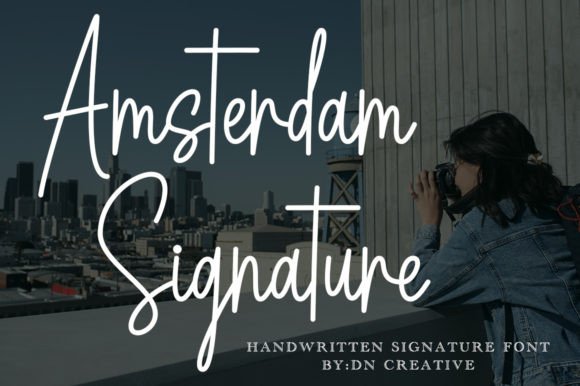
Introducing Amsterdam Signature Font: Elevate Your Designs with Modern Elegance
In the world of typography, a font can make or break a design. The right font can elevate your creation from ordinary to extraordinary, conveying the perfect tone and style. If you’re looking for a modern and sophisticated script font to add to your library, look no further than Amsterdam Signature Font. In this article, we’ll explore the features and benefits of this remarkable font and why it’s a must-have for designers and creatives.
What is Amsterdam Signature Font?
Amsterdam Signature Font is a modern and monoline script font that boasts a sleek and elegant design. Crafted with precision and attention to detail, this font is perfect for a wide range of applications, from branding and advertising to packaging and digital media. Its unique blend of modernity and sophistication makes it an excellent choice for designers seeking to create stunning visual content.
Key Features of Amsterdam Signature Font
• Modern and Monoline Design: Amsterdam Signature Font features a sleek and modern monoline design that exudes elegance and sophistication.
• Accurately Crafted and Detailed: Each letter and swash has been meticulously crafted to ensure a high level of detail and precision.
• Versatile: Amsterdam Signature Font can be used for a wide range of applications, from logos and branding to packaging and digital media.
The Benefits of Using Amsterdam Signature Font
So, why should you choose Amsterdam Signature Font for your design projects? Here are just a few benefits of using this remarkable font:
• Elevate Your Designs: With Amsterdam Signature Font, you can add a touch of modern elegance to your designs, setting them apart from the competition.
• Improve Readability: The monoline design of this font ensures excellent readability, making it perfect for body text and headlines.
• Increase Versatility: Amsterdam Signature Font can be used for a wide range of applications, from print to digital media.
How to Use Amsterdam Signature Font
• Pair it with Other Fonts: Combine Amsterdam Signature Font with other fonts to create stunning contrast and visual interest.
• Use it for Branding and Advertising: Amsterdam Signature Font is perfect for logos, advertisements, and other marketing materials.
In conclusion, Amsterdam Signature Font is a modern and sophisticated script font that is sure to elevate your designs. With its monoline design, PUA encoding, and meticulous attention to detail, this font is perfect for designers and creatives seeking to create stunning visual content. Whether you’re working on a branding project, advertisement, or digital media, Amsterdam Signature Font is a wonderful asset to have in your font library.